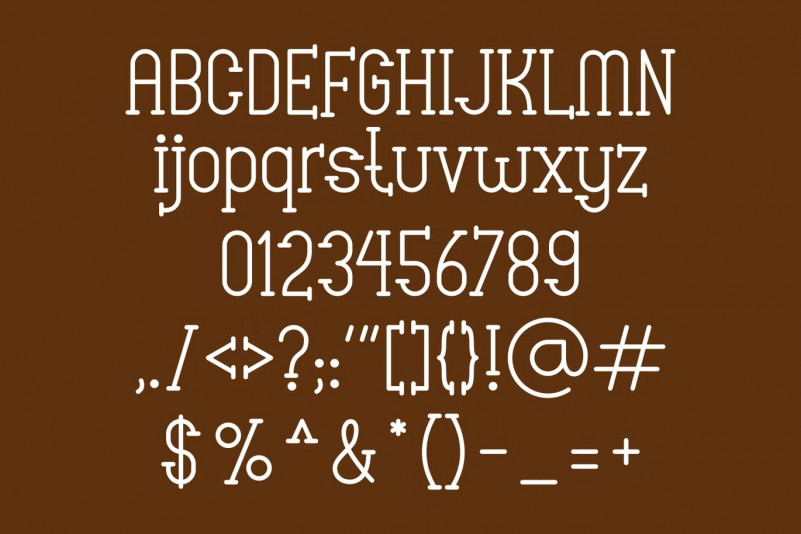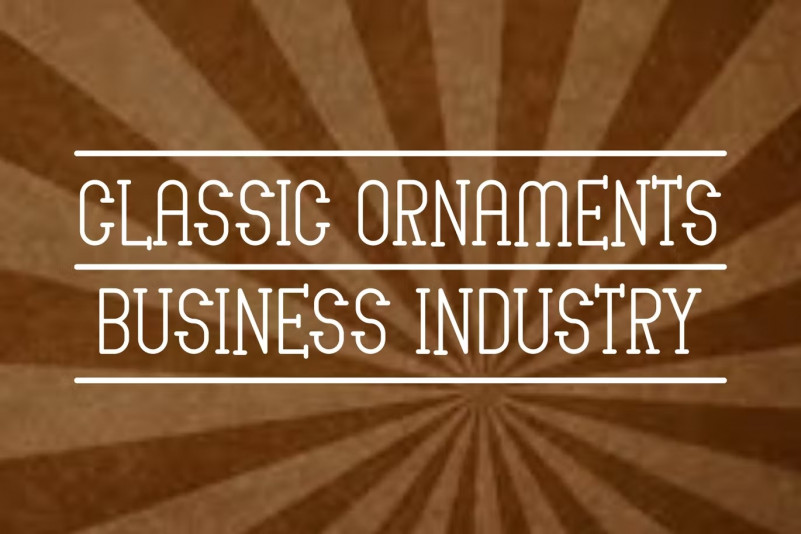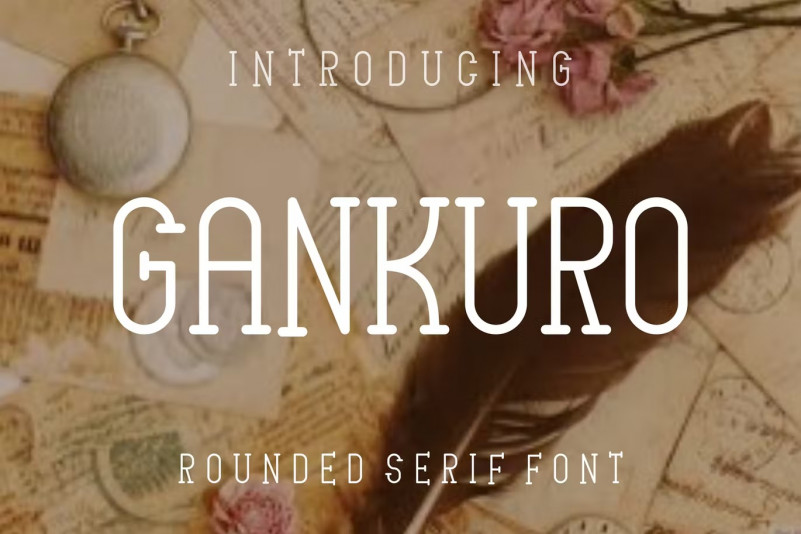
Gankuro Font
Gankuro is modern font with a slab serif style. Perfectly suited on print/screen; it can be used freely for logotypes, e-books and mobile applications and is especially food for headlines, banners, posters, web-sites, magazines, etc.